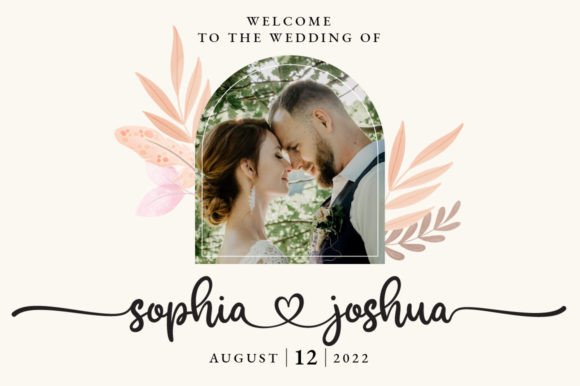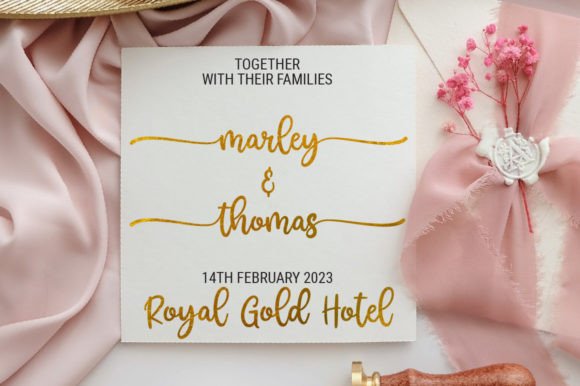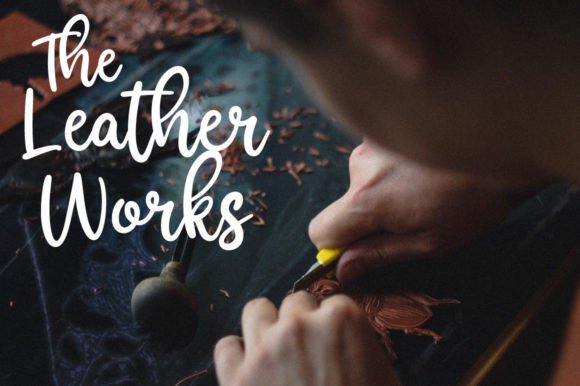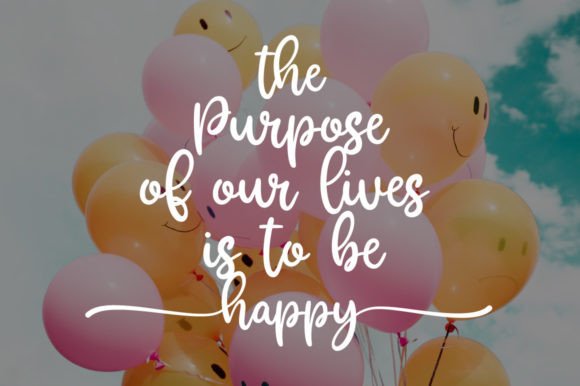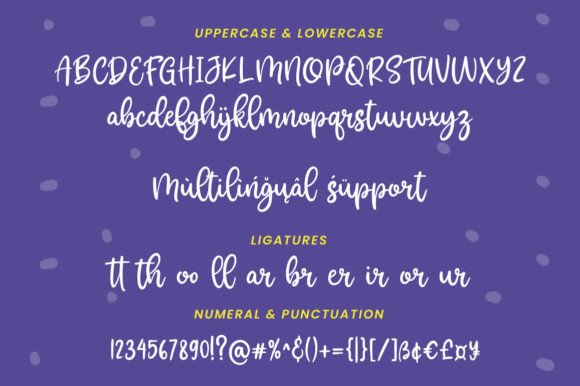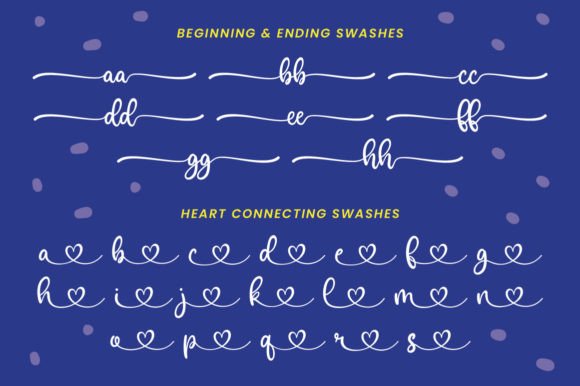
Introducing Blushing Font: The Perfect Elegant Brush Handwritten Font
Are you a designer or crafter looking for a font that exudes elegance and sophistication? Look no further than Blushing Font, a beautiful brush handwritten font that’s perfect for a variety of creative projects. In this article, we’ll take a closer look at Blushing Font, its features, and how you can use it to elevate your designs.
What is Blushing Font?
Blushing Font is a fun yet elegant brush handwritten font that’s designed to add a touch of sophistication to your designs. Its unique blend of playful and refined characteristics makes it perfect for a wide range of projects, from logos and wedding stationery to cards, gift designs, and more.
Key Features of Blushing Font
- PUA Encoded: Blushing Font is PUA encoded, which means you can access all of the glyphs and swashes with ease. This makes it simple to customize your designs and add your own personal touch.
- Elegant and Refined: Blushing Font has a sophisticated, elegant feel that’s perfect for designs that require a touch of luxury.
- Versatile: Blushing Font is perfect for a wide range of projects, including logos, wedding stationery, cards, gift designs, photography, watermarks, product packaging, and handwritten quotes.
Uses for Blushing Font
Blushing Font is a versatile font that can be used for a wide range of creative projects. Here are some ideas to get you started:
- Logos: Create a beautiful, elegant logo for your business or brand with Blushing Font.
- Wedding Stationery: Use Blushing Font to create stunning wedding stationery, including invitations, save-the-dates, and thank-you cards.
- Cards: Design beautiful greeting cards for special occasions, such as birthdays, anniversaries, and holidays.
- Gift Designs: Add a personal touch to your gift designs, such as gift tags, wrapping paper, and gift boxes.
- Photography: Use Blushing Font to create beautiful watermarks for your photos, or to add captions and quotes to your images.
- Product Packaging: Elevate your product packaging with Blushing Font, perfect for labels, packaging inserts, and more.
- Handwritten Quotes: Create beautiful handwritten quotes and phrases with Blushing Font, perfect for social media, blogs, and more.
Why Choose Blushing Font?
With so many fonts available, why choose Blushing Font? Here are just a few reasons:
- Unique and Elegant: Blushing Font has a unique and elegant feel that’s sure to set your designs apart.
- High-Quality: Blushing Font is a high-quality font that’s designed to produce crisp, clear results.
- PUA Encoded: Blushing Font is PUA encoded, making it easy to access all of the glyphs and swashes.
Blushing Font is a beautiful, elegant brush handwritten font that’s perfect for designers and crafters looking to add a touch of sophistication to their designs. With its unique blend of playful and refined characteristics, Blushing Font is versatile and easy to use, making it perfect for a wide range of creative projects. Whether you’re designing logos, wedding stationery, cards, or more, Blushing Font is the perfect choice.